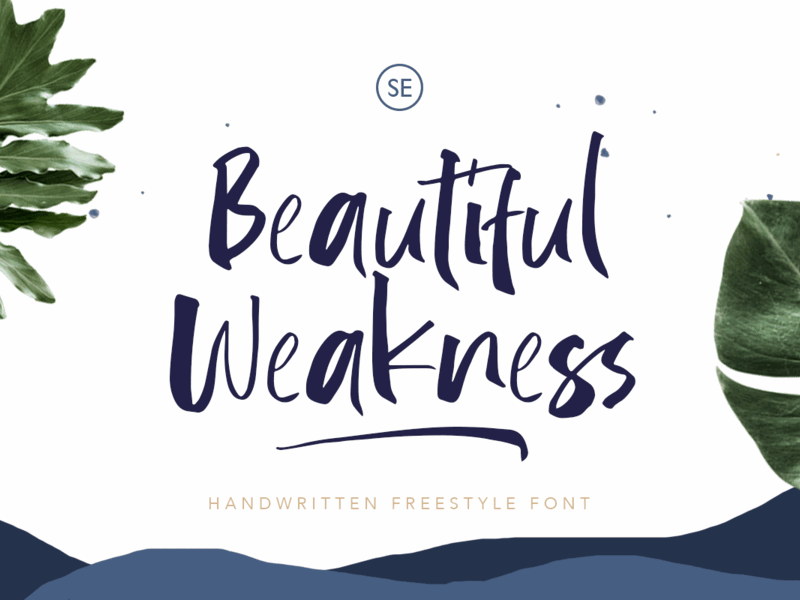
Beautiful Weakness – Handwritten Font
Beautiful Weakness is a free-styled handwritten font that will make all your project more unique. With brush touch, this font will make your artwork feels more natural. Comes with ligatures and underline that you can access it from opentype feature. Also support multi language!